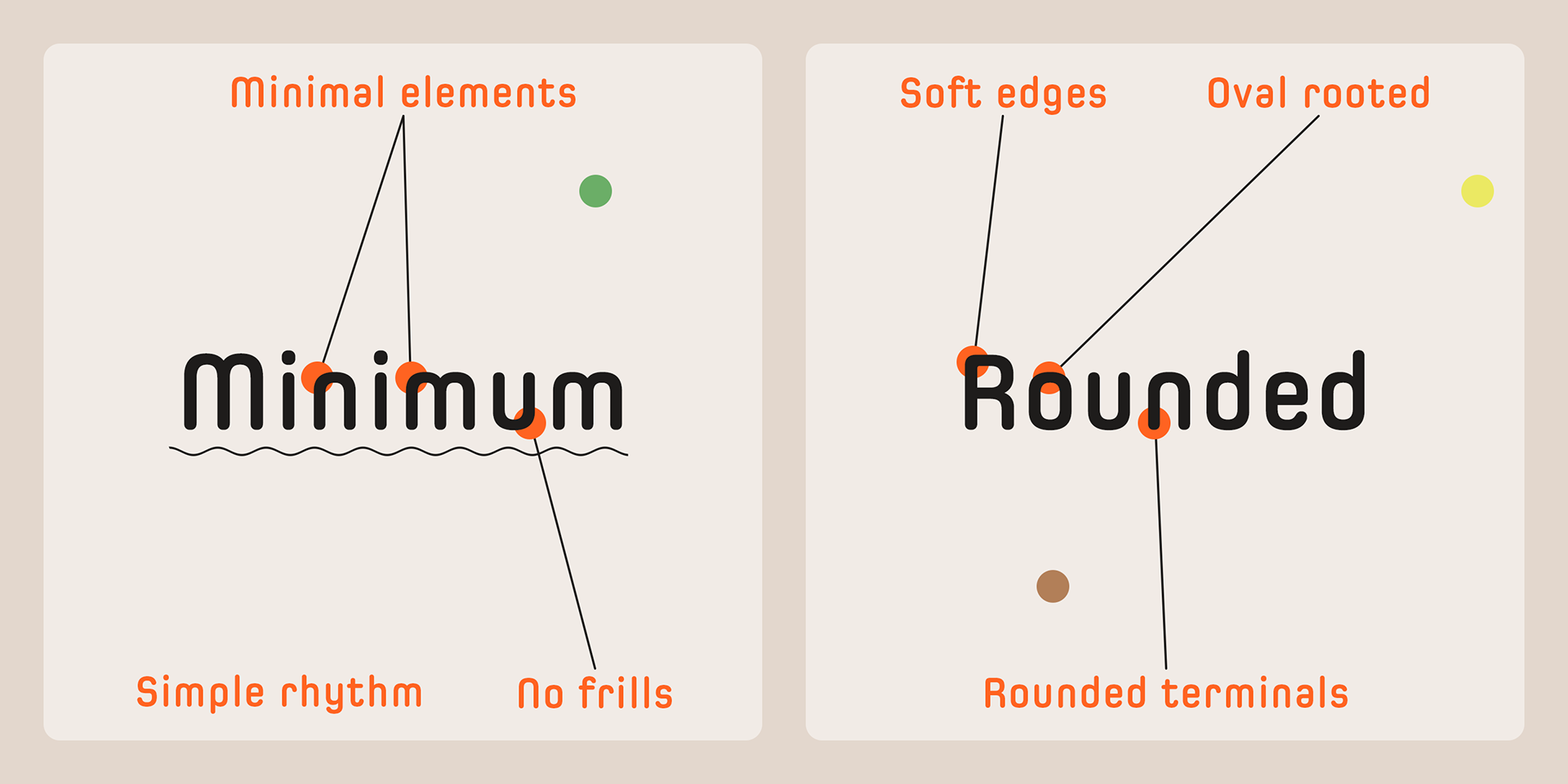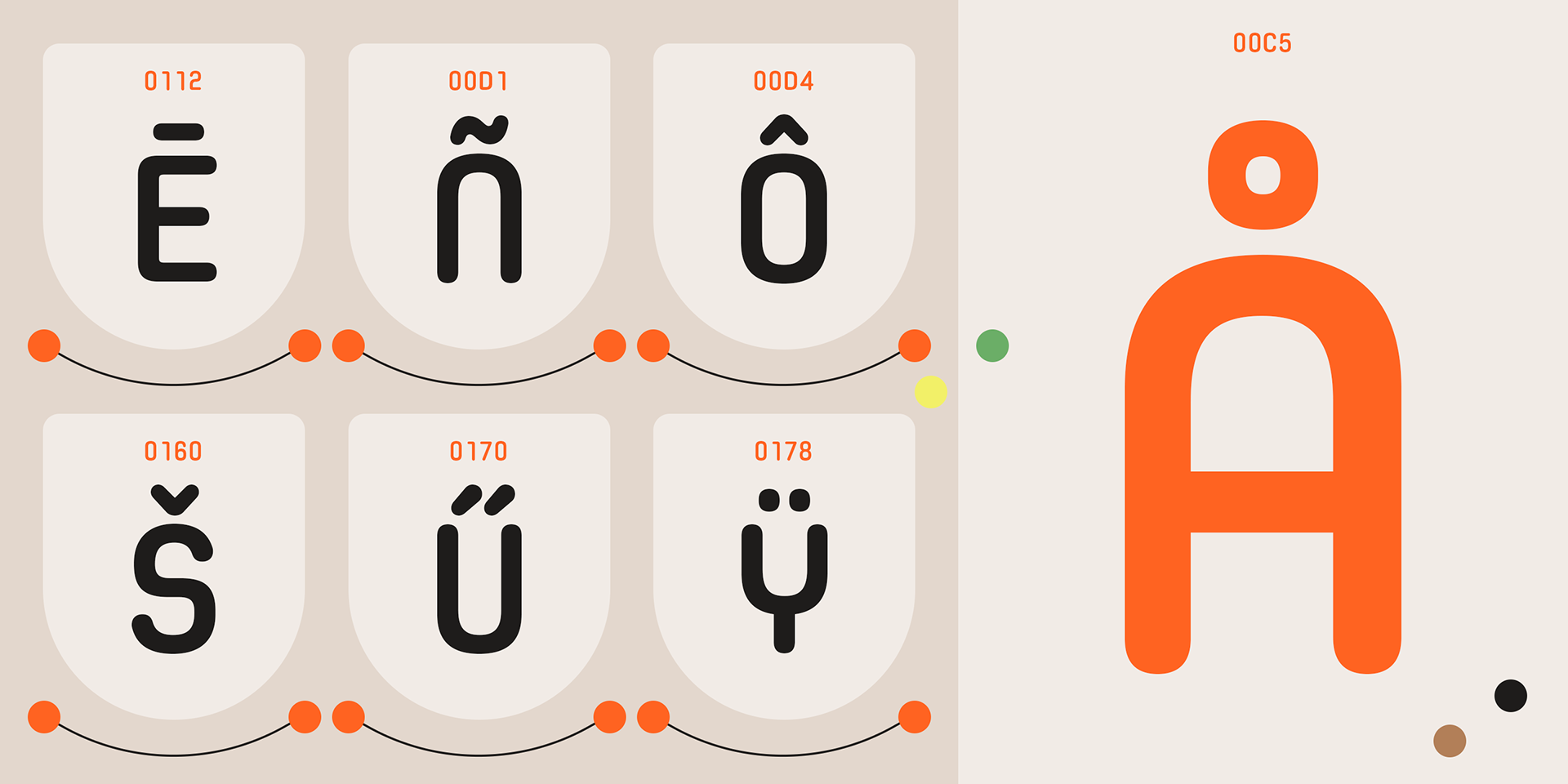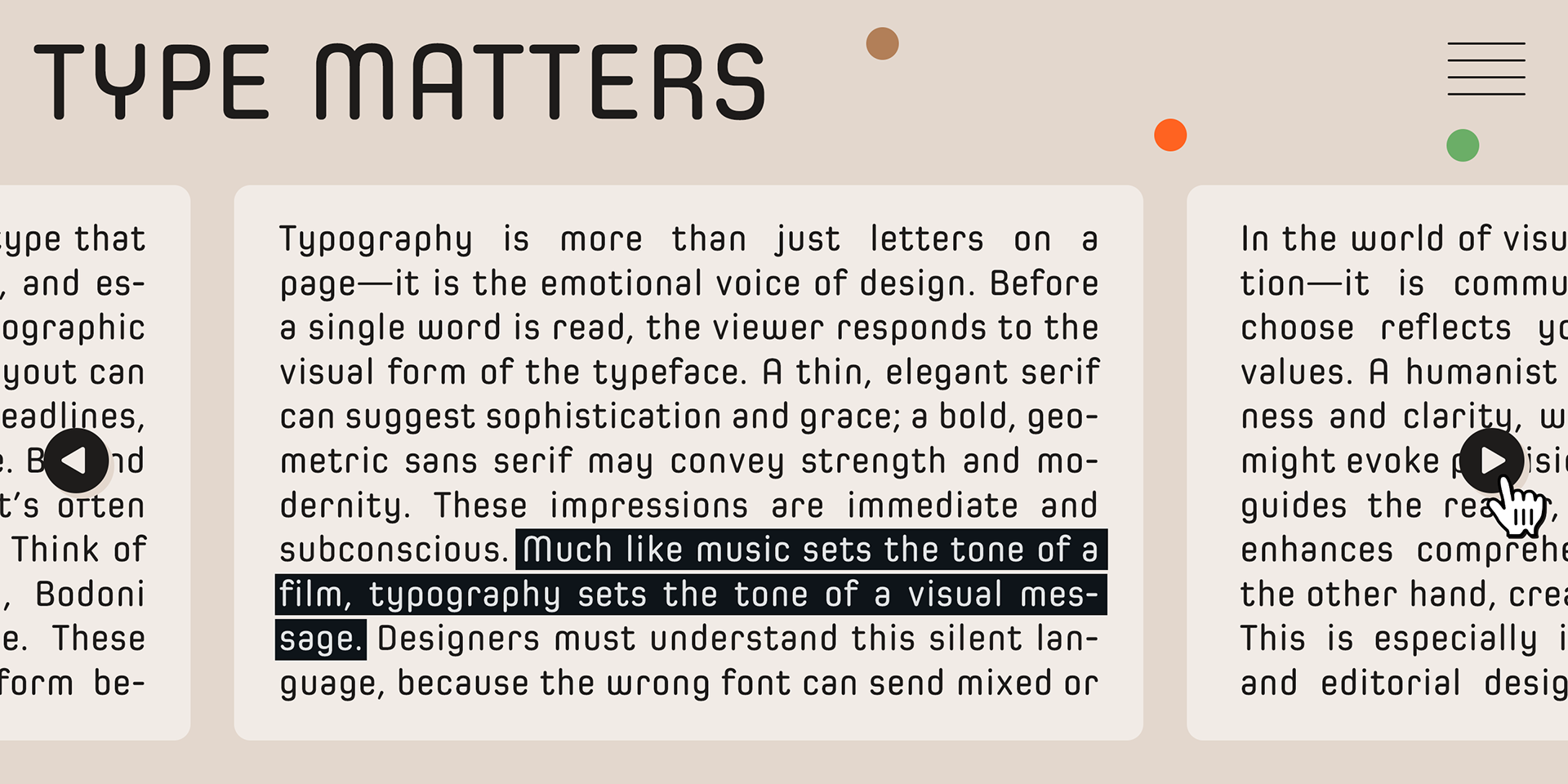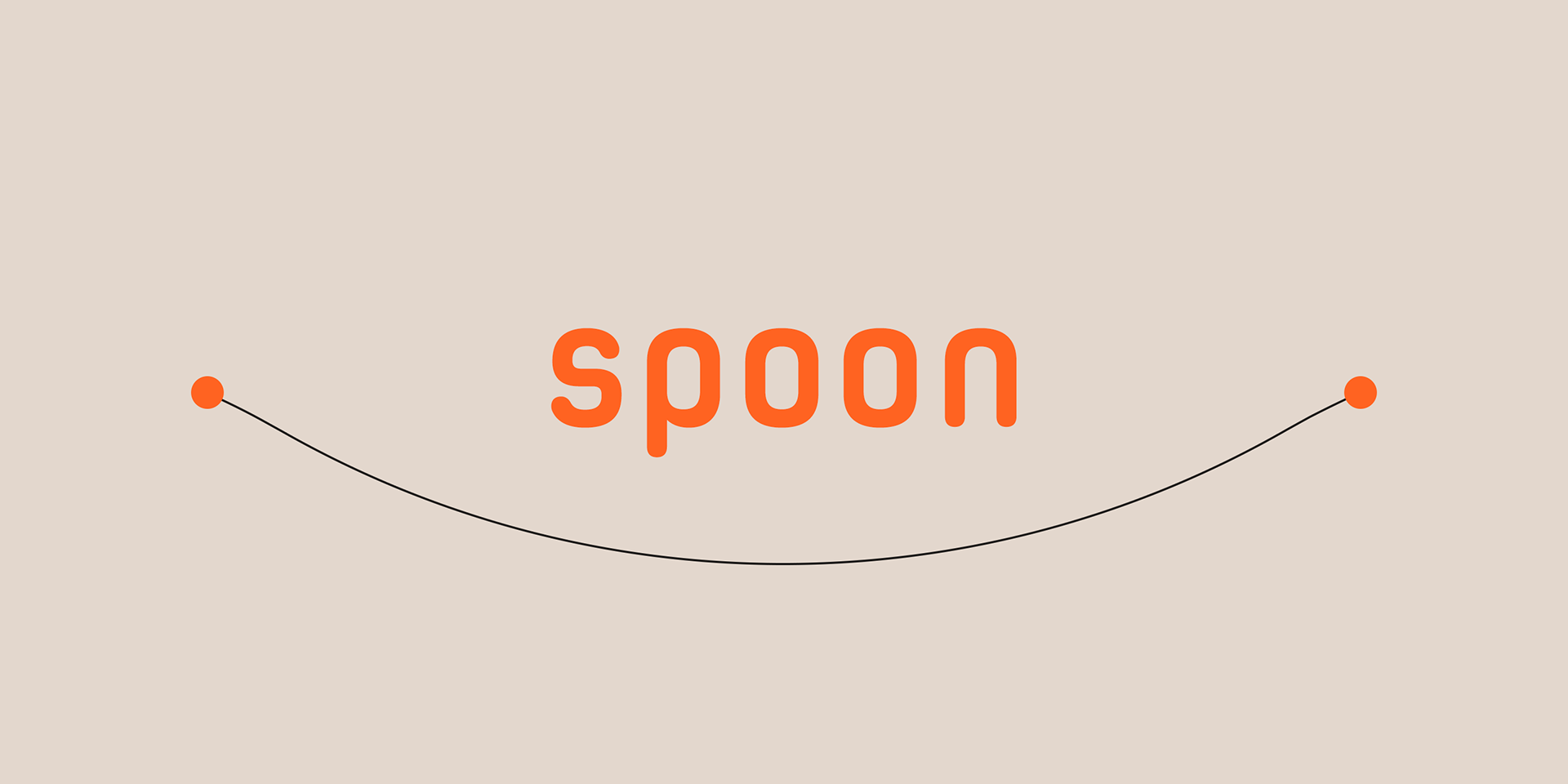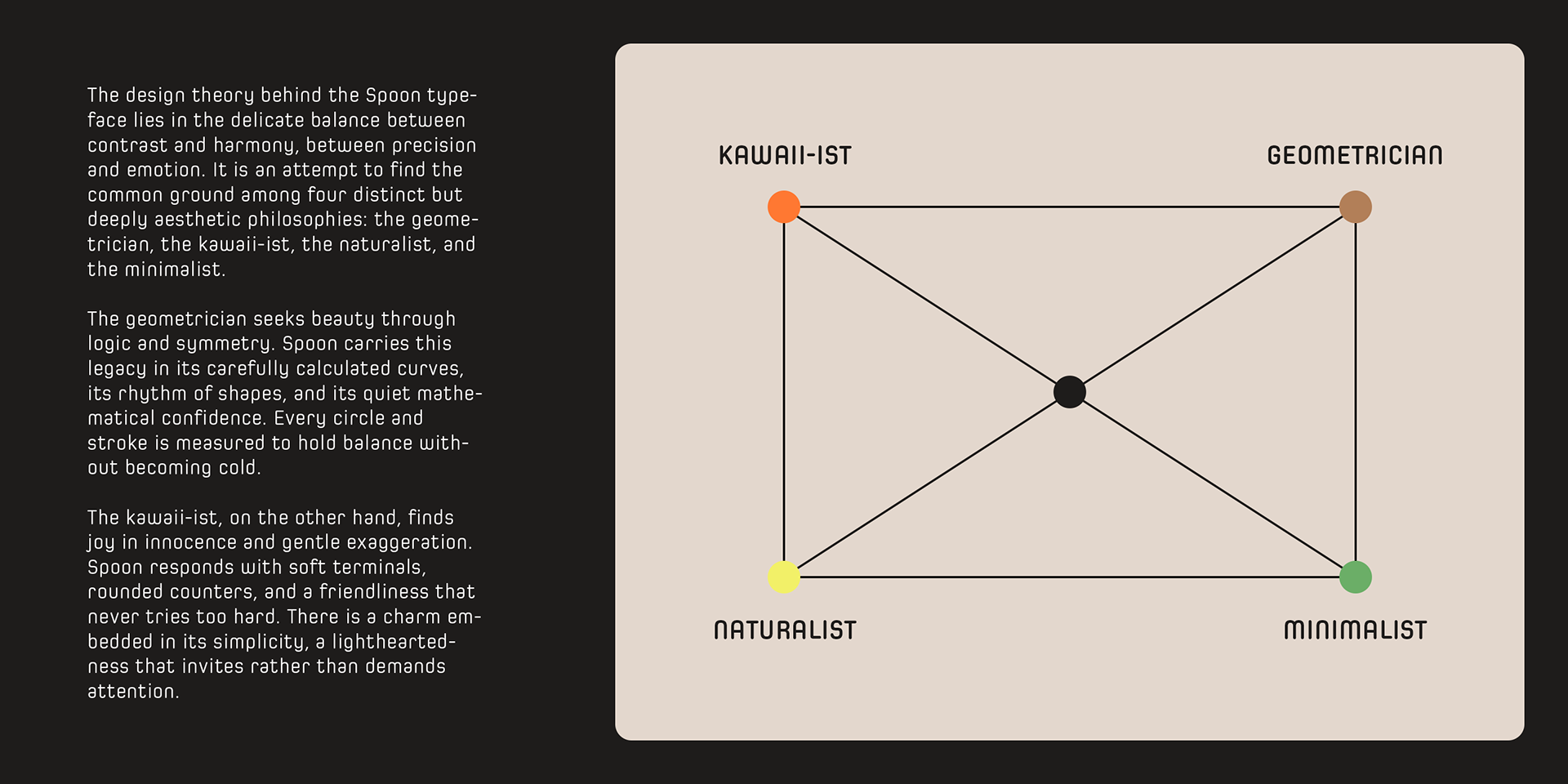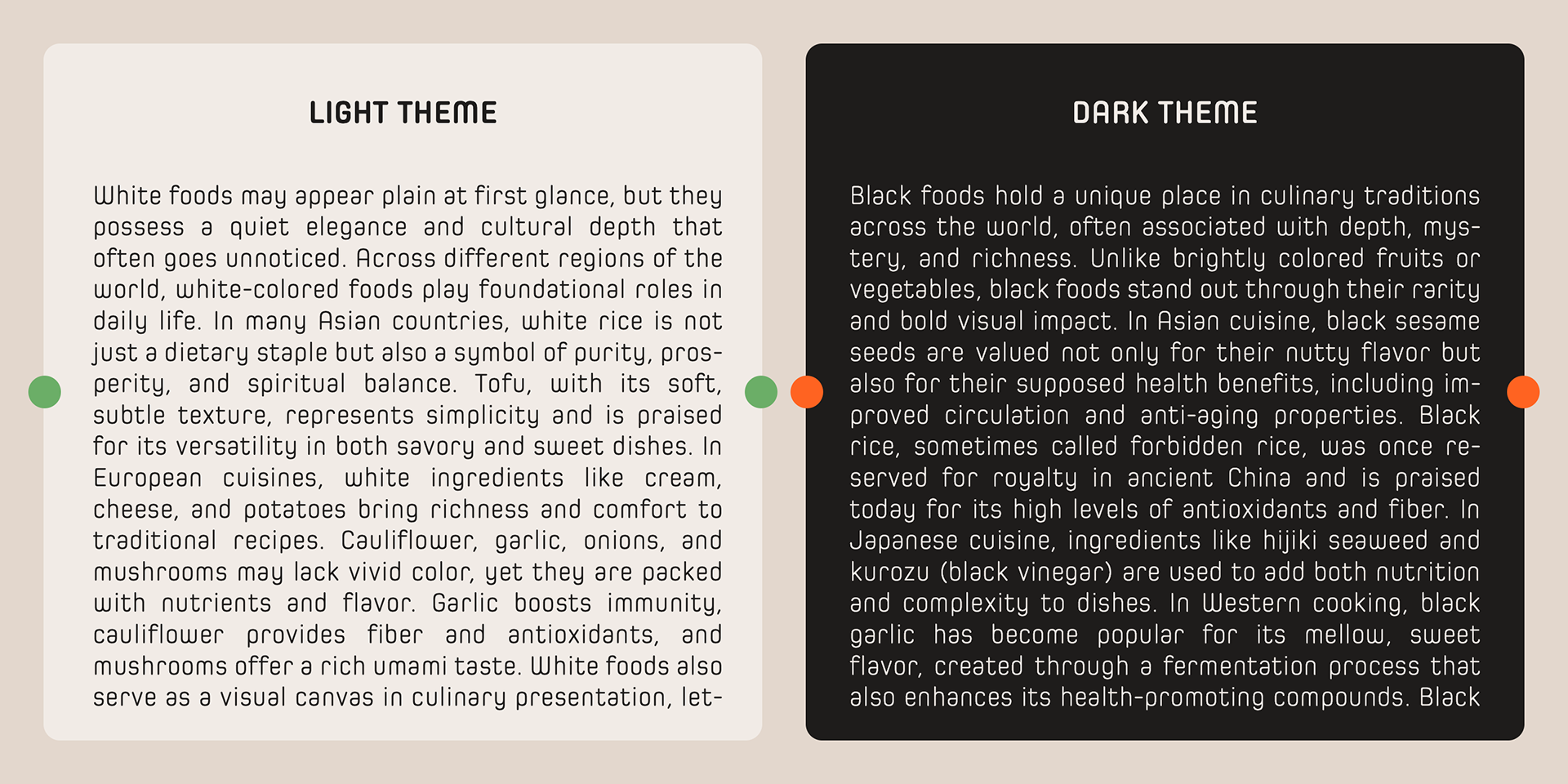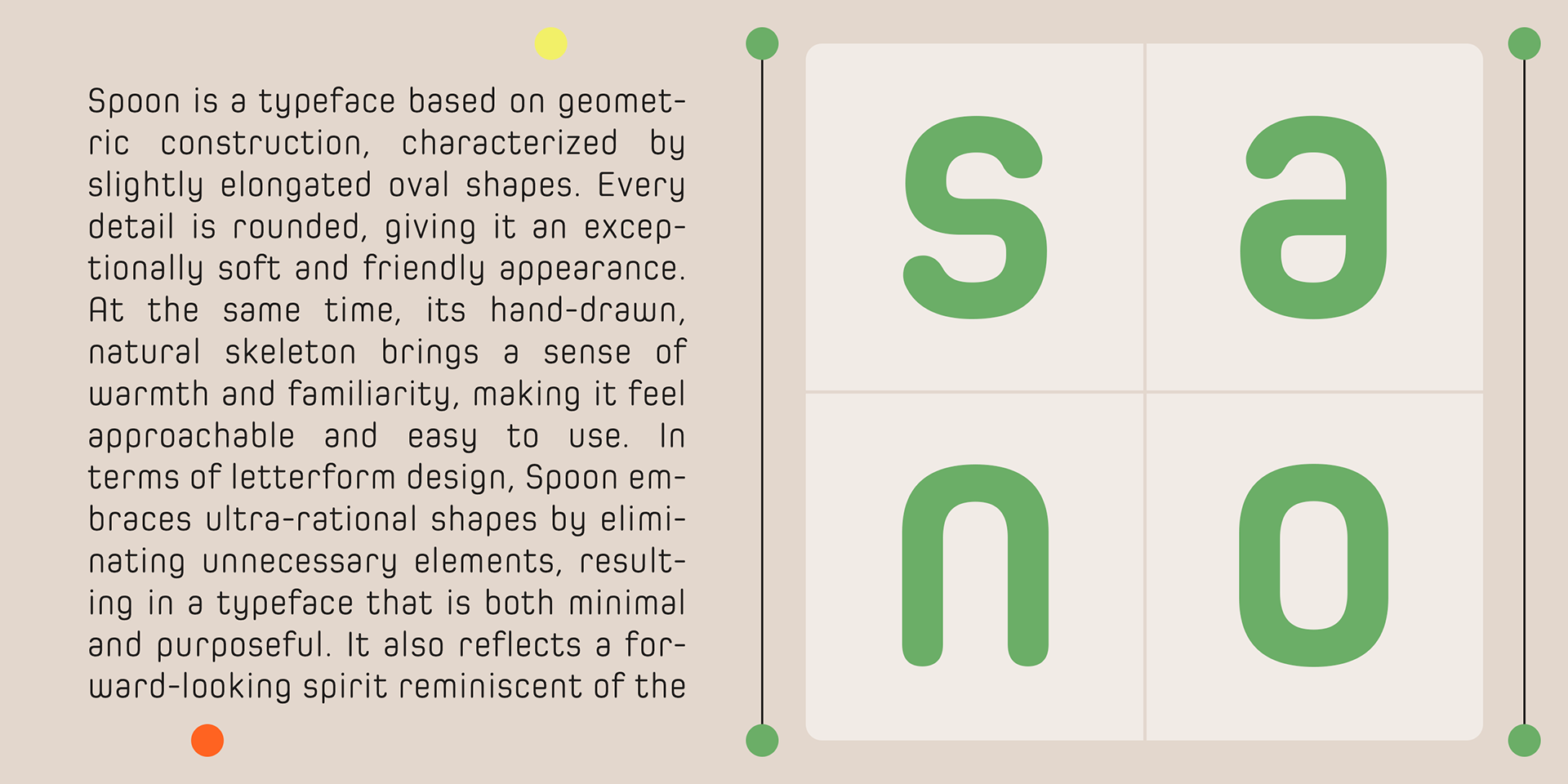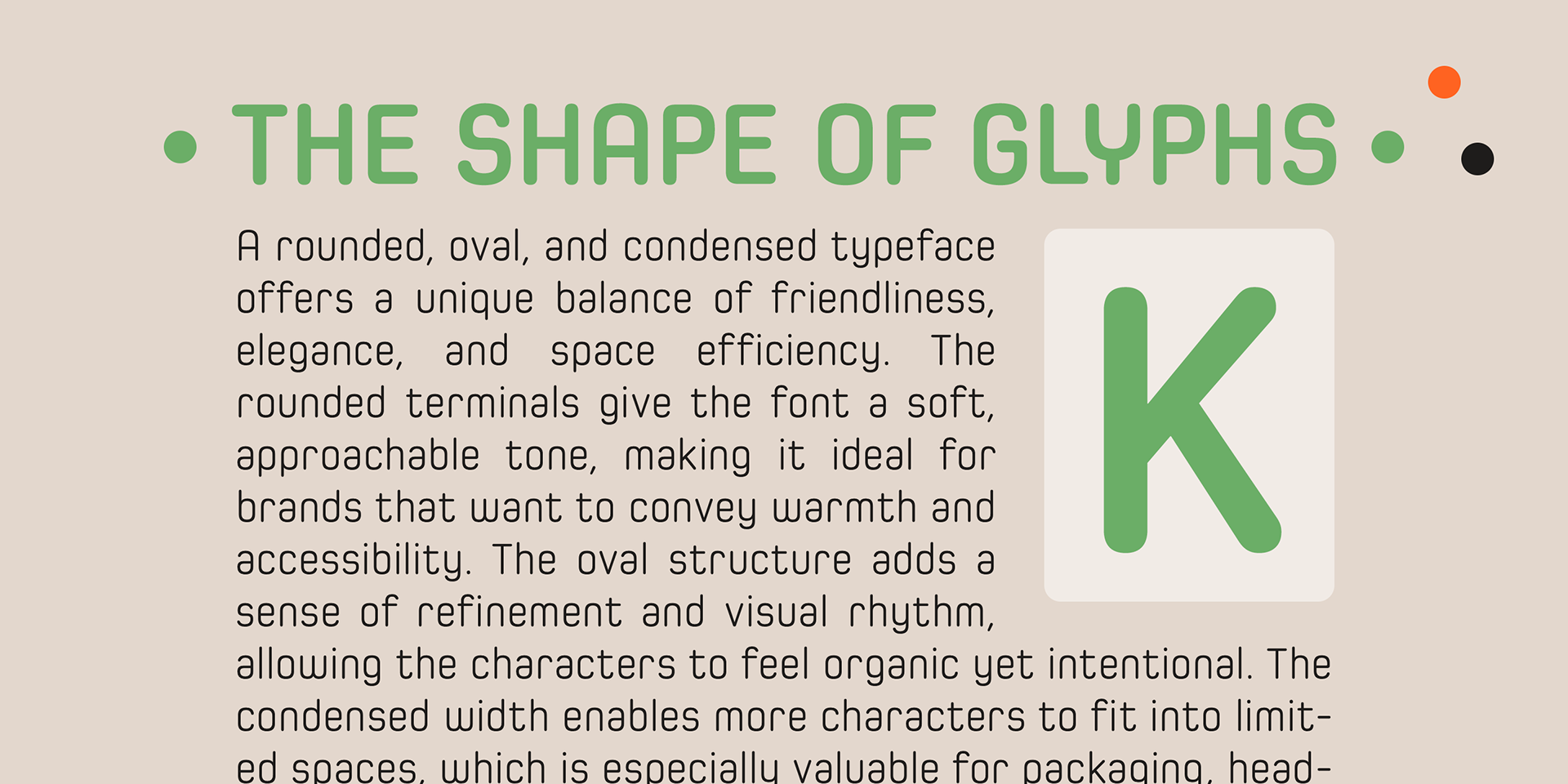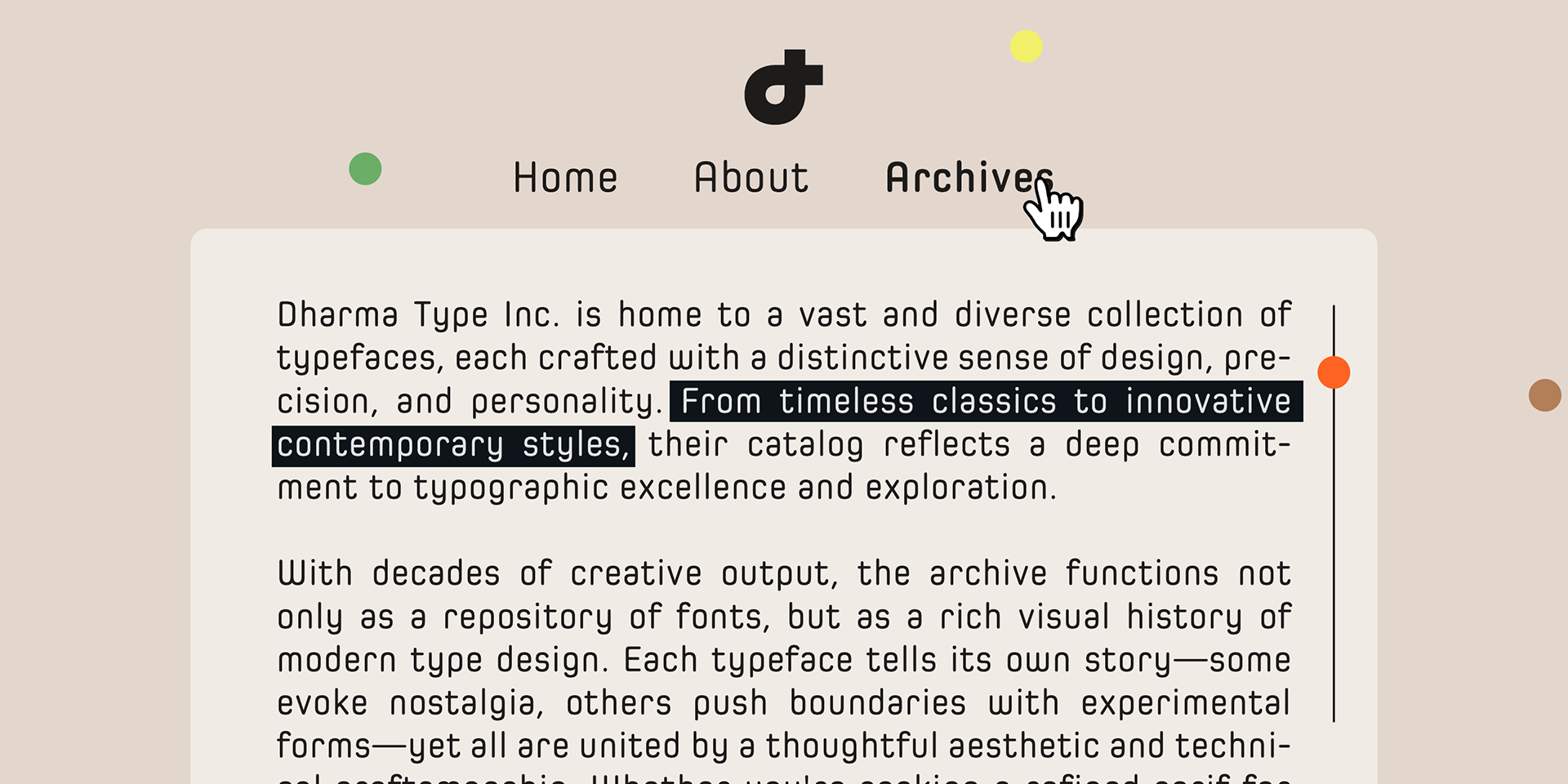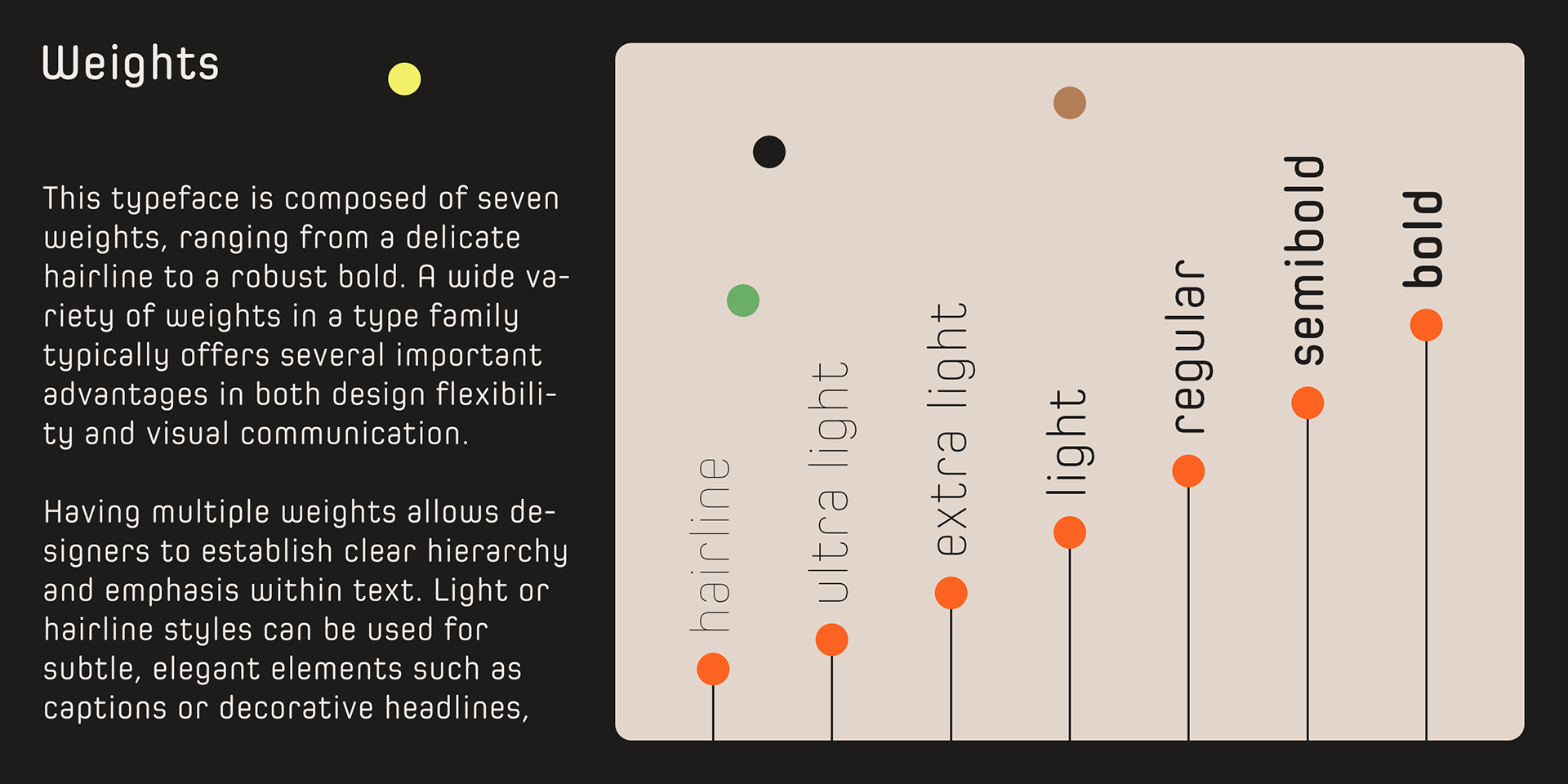
Spoon
Spoon is a fresh and contemporary sans-serif designed for versatility across a wide range of projects.
While its letterform skeleton is geometrically based and minimal, the shapes are softened with humanistic outlines, giving the impression of subtle handwritten influence.
This balance results in a typeface that is not only clean, legible, and highly functional, but also natural, friendly, and approachable in tone.
Spoon includes seven weights with matching italics, and supports diacritics for most European languages in each style—making it a comprehensive solution for both display and body text.